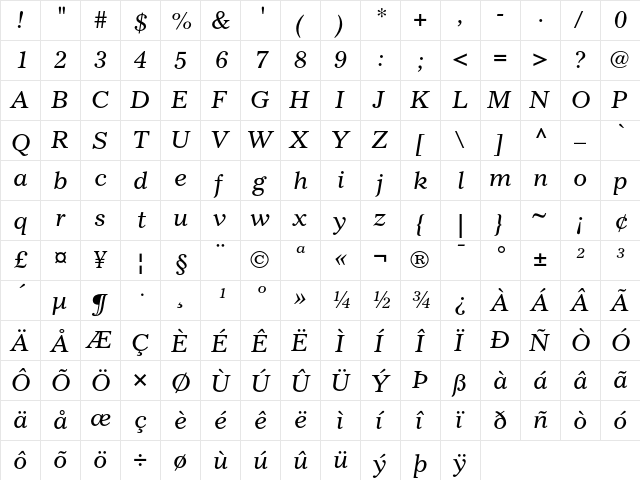
Gazette LH Italic
Design Context for Gazette LH Typeface
Gazette LH is a composed and adaptable typeface that performs quietly and consistently across a wide range of design contexts. Its italic angle brings a sense of urgency and motion to the letterforms.
Pro Tip: Use Gazette LH for emphasis, pull quotes, and subheadings where its slanted energy can add rhythm to the layout.